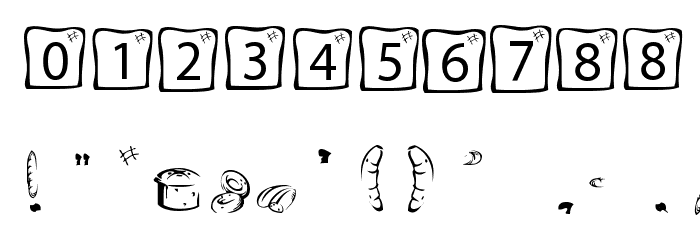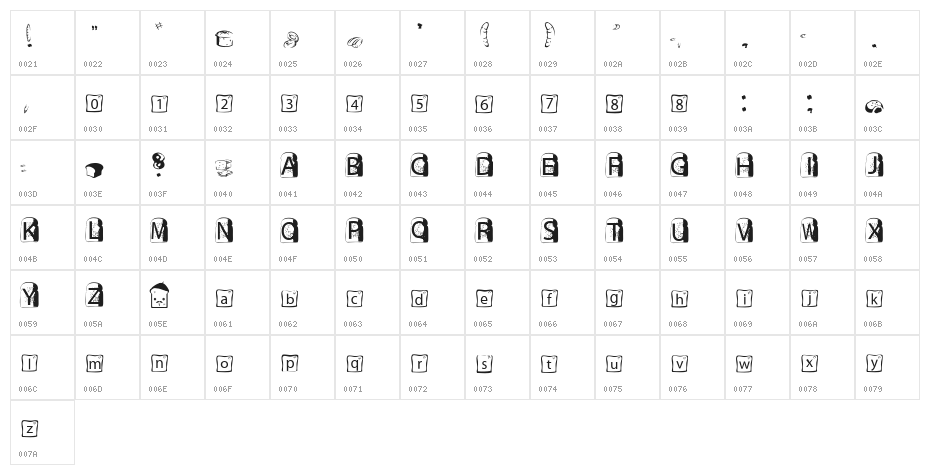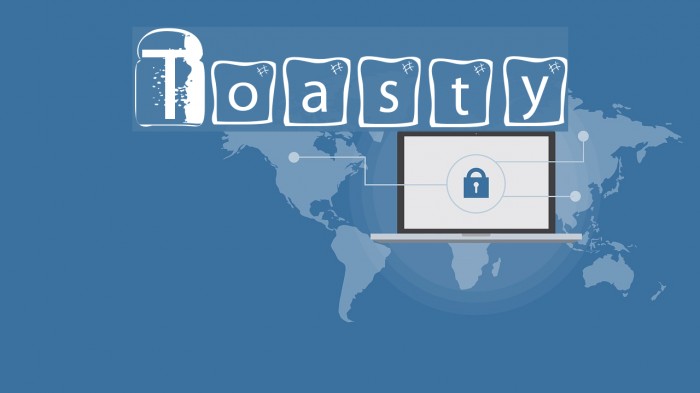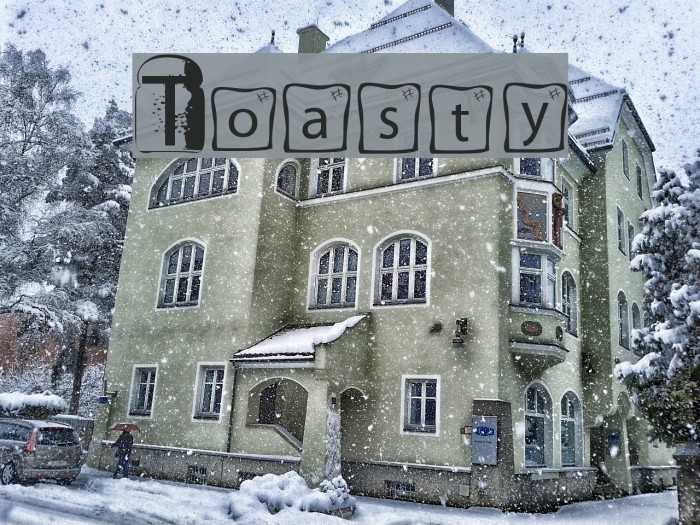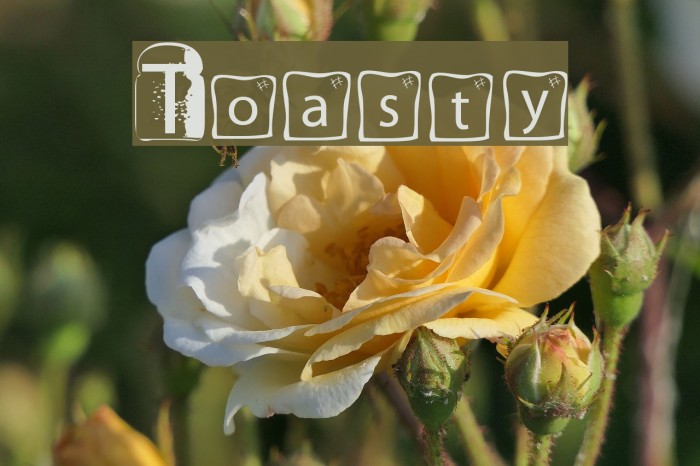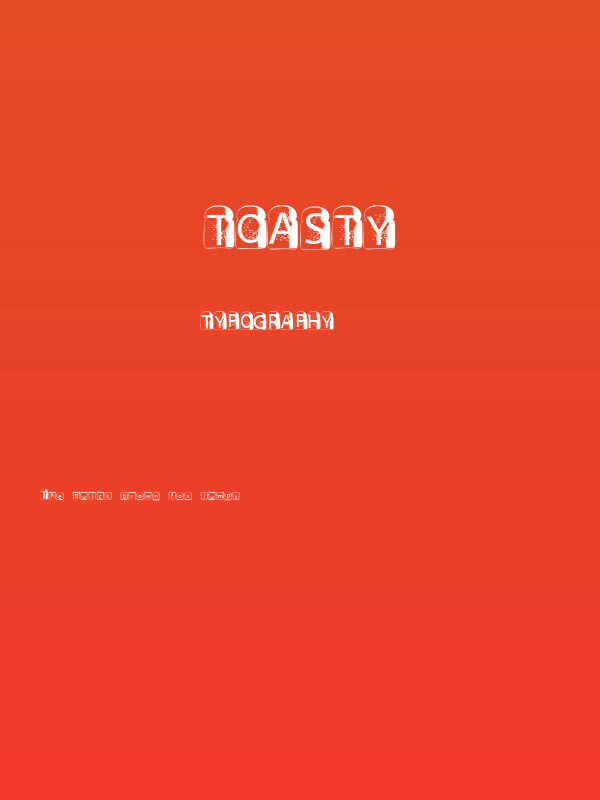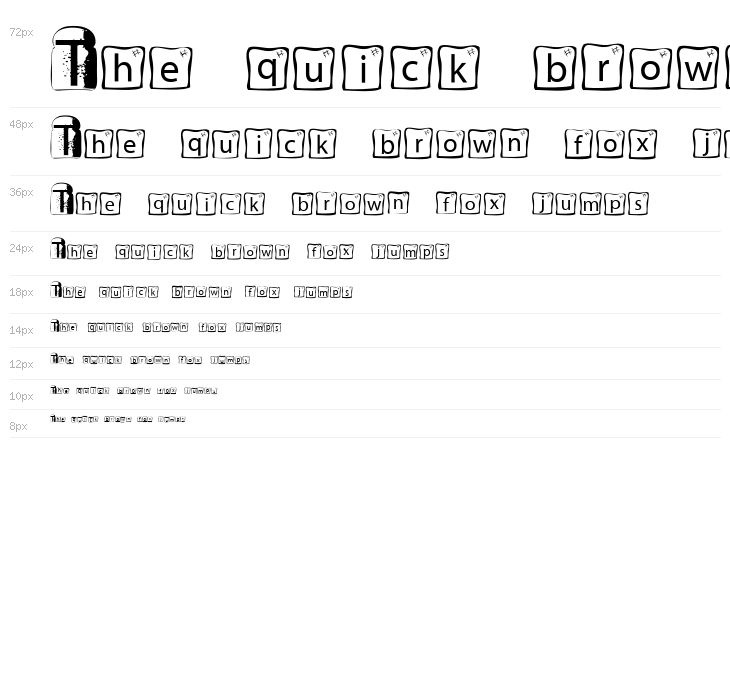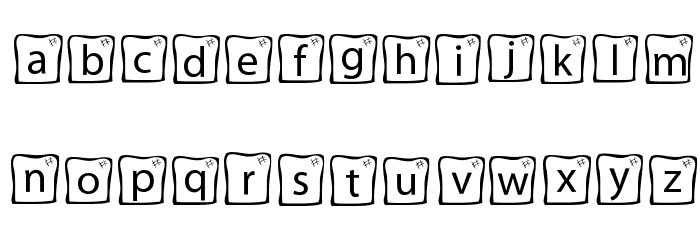
Toasty Font
Toasty Description
This playful and whimsical font features characters that resemble slices of toast, complete with a textured, slightly burnt appearance. Each letter and number is encased in a rounded, bread-like border, giving it a unique and quirky look. The font is highly decorative, with a hand-drawn style that adds a touch of fun and creativity. The characters are evenly spaced, with a consistent width and a medium contrast in stroke thickness. The overall style is both modern and nostalgic, evoking a sense of warmth and comfort.